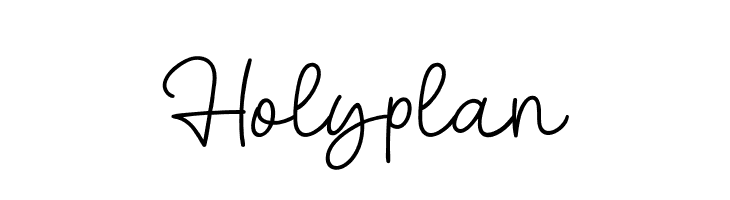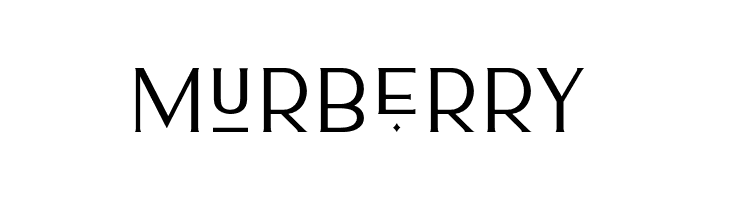
A sophisticated cursive script with fluid, interconnected strokes and medium contrast.
A modern, geometric font with sharp, angular uppercase letters and elegant numerals.
A bold, cursive font with a dynamic and handwritten style.
An elegant, flowing script font with graceful curves and a sophisticated style.
A playful, bold handwritten font with a casual and friendly style.
A whimsical, cursive script font with elegant, flowing lines.
A graceful and elegant script font with flowing cursive letters.
A playful, hand-drawn font with irregular outlines and a quirky style.
A playful, casual handwritten font with loose and flowing strokes.